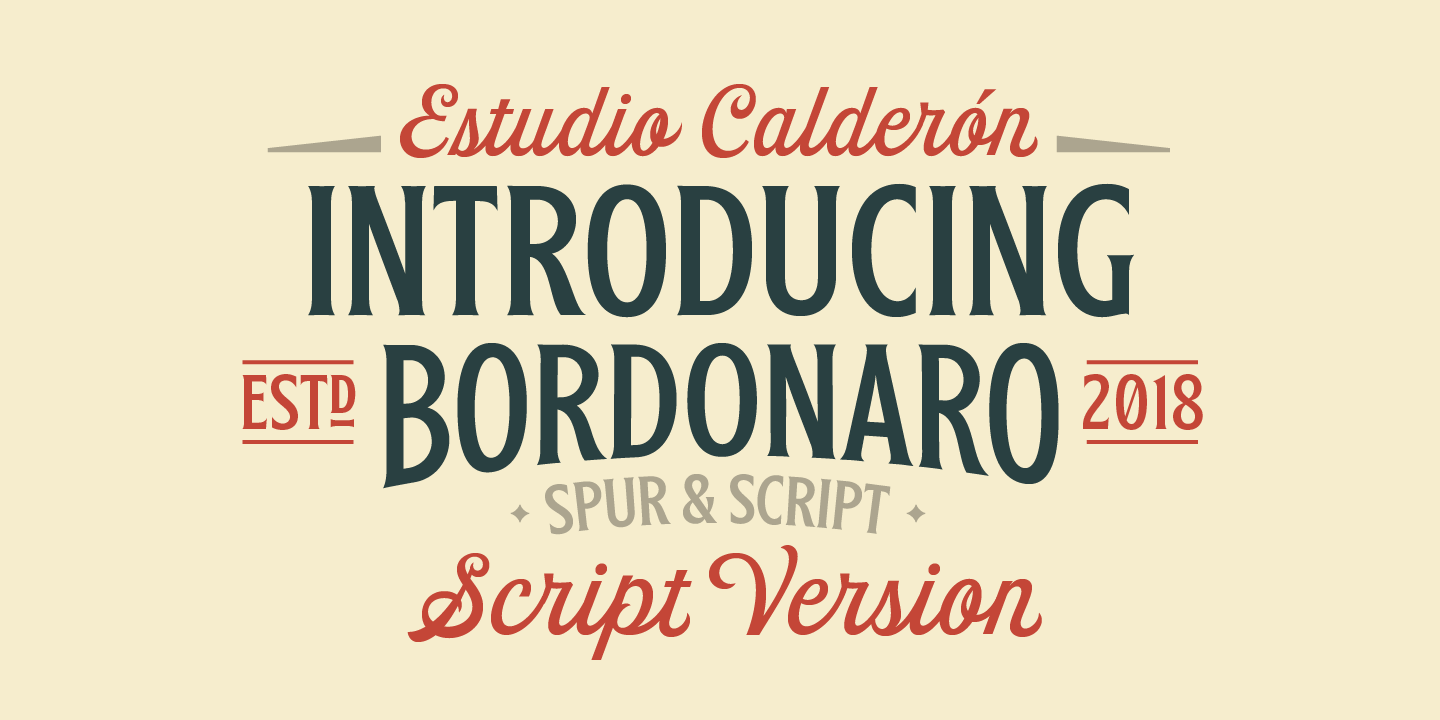
Bordonaro Script Font Free Download is a beautifully crafted handwritten script typeface that brings warmth and sophistication to your designs. Its smooth, flowing letterforms and elegant swashes make it ideal for wedding invitations, branding for boutique businesses, social media graphics, and luxury packaging.
This font’s delicate yet readable style adds a personal touch, making any project feel more authentic and refined. Whether you’re working on heartfelt greeting cards or stylish logos, Bordonaro Script Font Free Download effortlessly combines classic calligraphy with modern aesthetics.